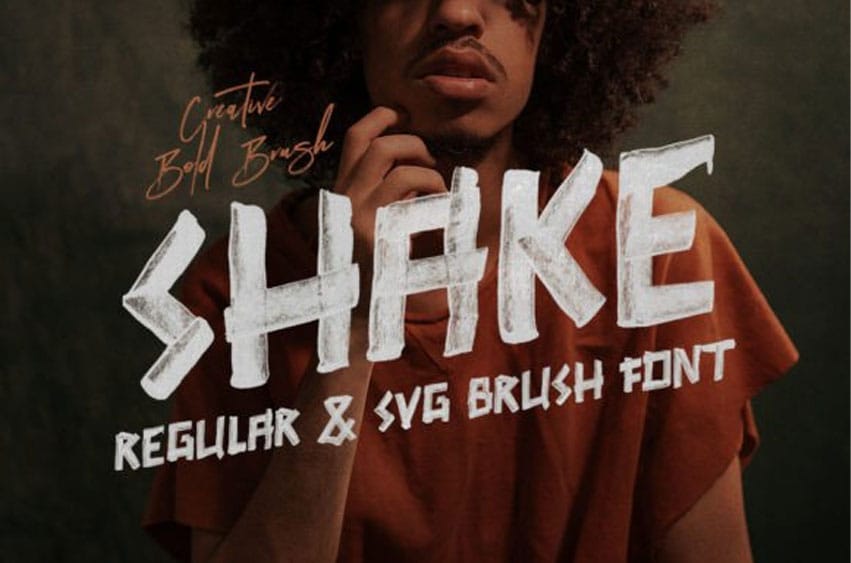
Shake Font is bold and full of life, with its thick strokes and intricate details.
Its luxurious texture makes it perfect for making a statement in any project.